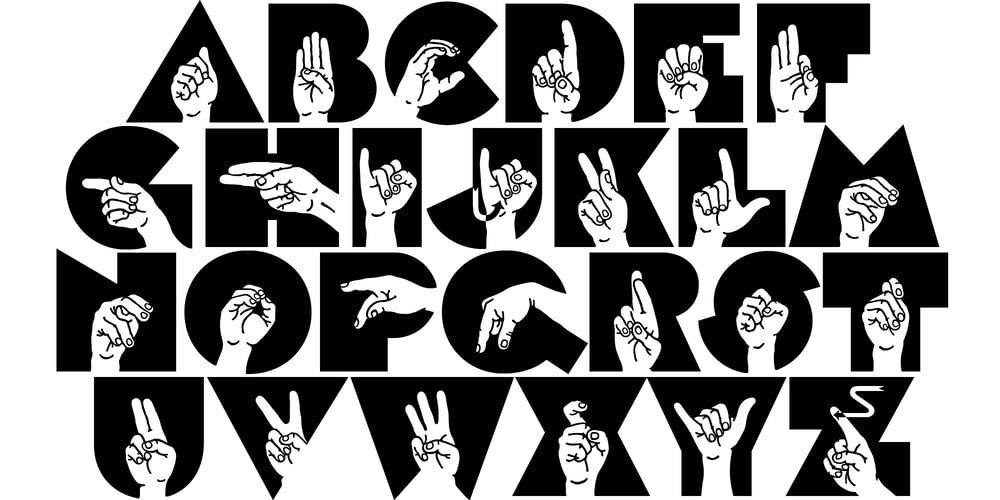
FingerSpeller BF
FingerSpeller BF font
FingerSpeller BF Font Family was designed by John Bomparte and published by Bomparte’s Fonts. FingerSpeller BF contains 2 styles and family package options. Many years ago I studied American Sign Language in an effort to better communicate with some friends of mine within the deaf community.I found ASL to be a beautifully expressive language from a vibrant and active culture.Out of that attempt came this stylized depiction of the manual alphabet used in finger-spelling. Until recently it had only existed in analog form, born of pen and ink on paper.So now I’m glad to say it’s turned digital.Typing a period (.) will reveal the sign for “I Love You” (a combination of the letters I, L and Y), which fits nicely within the shape of a heart. Holding down the shift key while again typing period (greater symbol) will reveal the heart in its filled-in form, which can serve as an underlay. Use these in an application that supports layering in order to create different color combinations.There’s a stylistic alternate letter “S” and an “OO” ligature which can be accessed in OpenType-savvy apps.